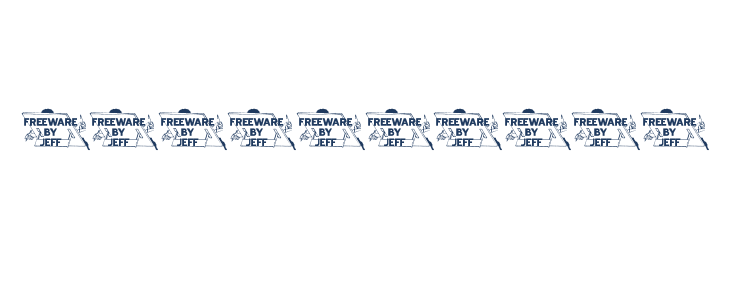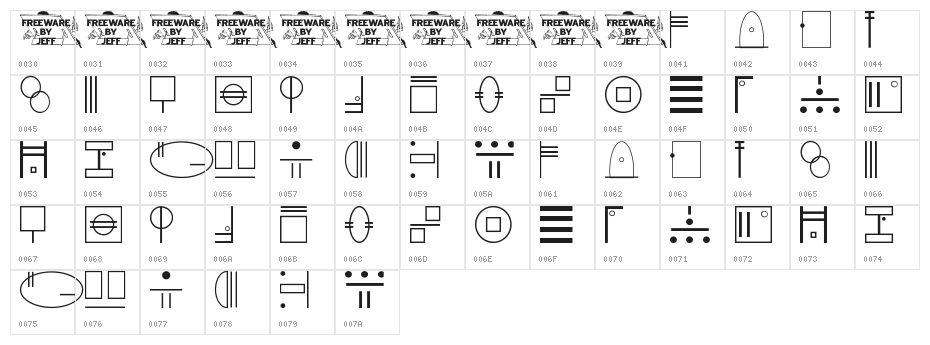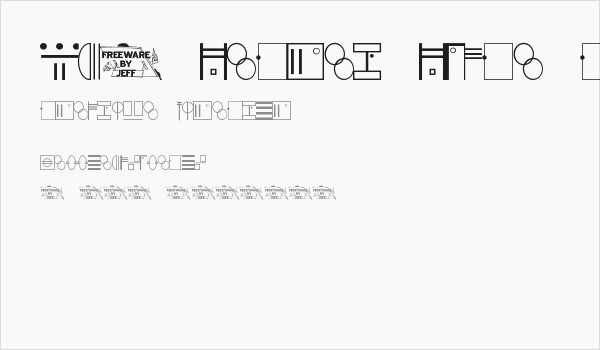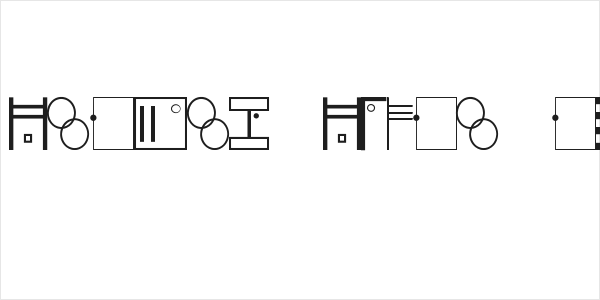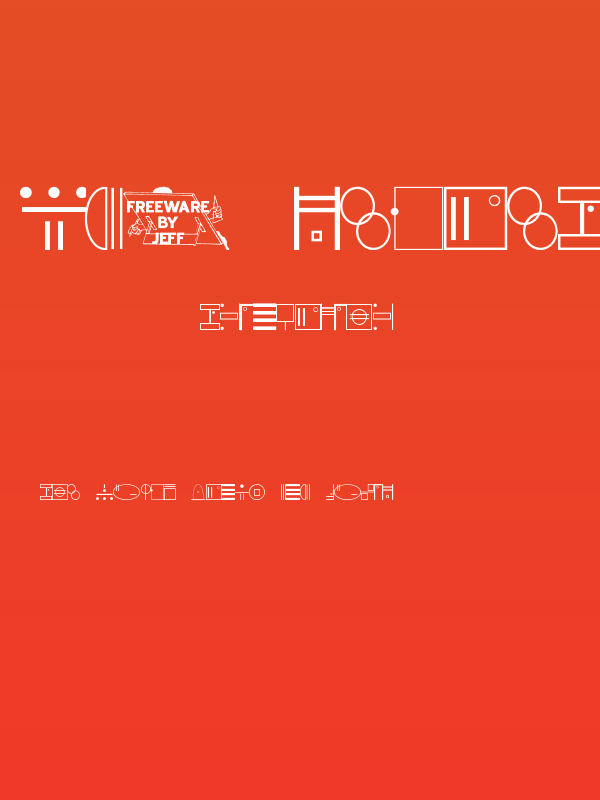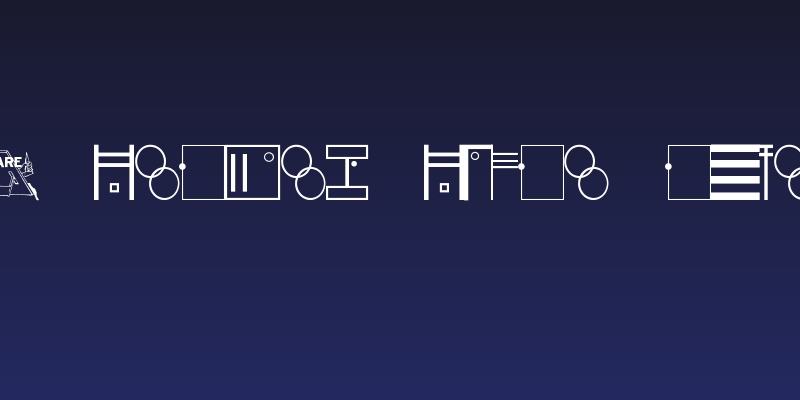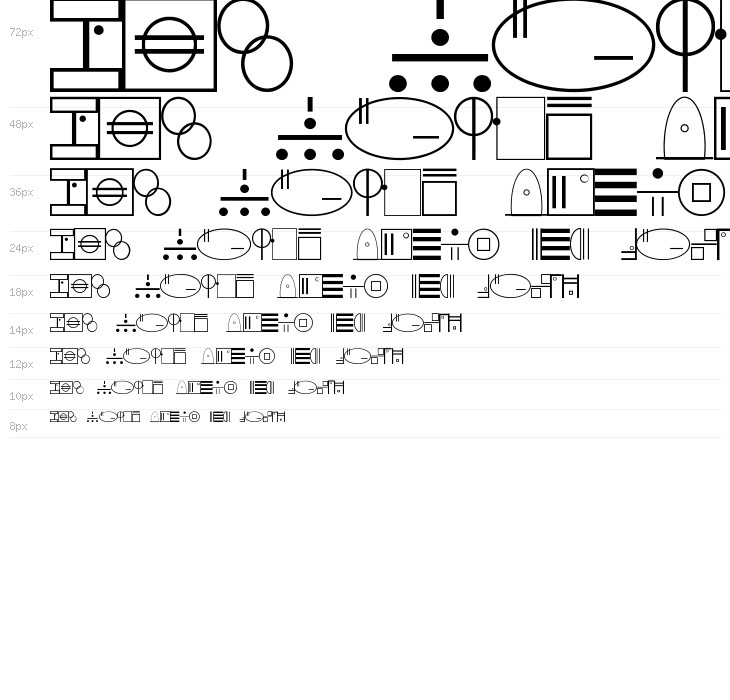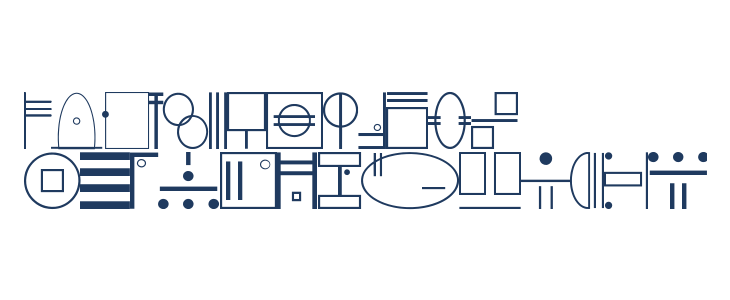
ZX-7 Secret Space Code JL Font
ZX-7 Secret Space Code JL Description
This font features a unique and abstract design, characterized by geometric shapes and lines that resemble a futuristic or alien script. The characters are composed of circles, squares, and lines, creating a coded or cryptic appearance. This design gives it a mysterious and otherworldly feel, making it suitable for creative and unconventional projects. The font's style is highly decorative, with each character appearing as a distinct symbol rather than a traditional letterform. The overall aesthetic is modern and experimental, appealing to those looking for a distinctive and artistic typeface.
| Overall Style | Modern, Experimental |
| Use Case | Logos, Posters, Creative Projects |
| Proposed Projects | Ideal for sci-fi themed designs, video game graphics, or any project requiring a mysterious and futuristic aesthetic. |